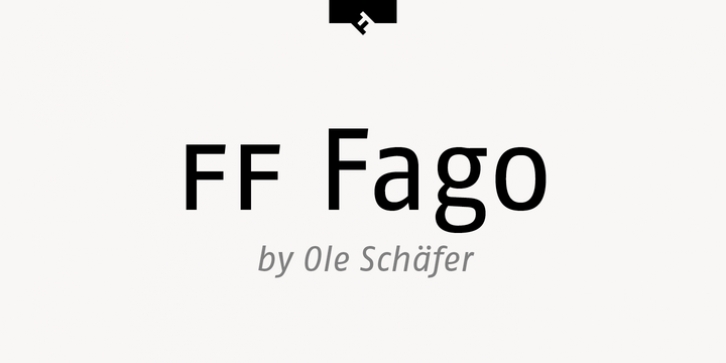
FF Fago Extended downloadDesigner: Ole Schäfer
Publisher: FontFont
German type designer Ole Schäfer created this sans FontFont in 2000.
The family has 30 weights, ranging from Regular to Black in Condensed, Normal, and Extended (including italics) and is ideally suited for advertising and packaging, editorial and publishing, logo, branding and creative industries, small text as well as wayfinding and signage.
FF Fago provides advanced typographical support with features such as ligatures, small capitals, alternate characters, case-sensitive forms, fractions, and super- and subscript characters.
It comes with a complete range of figure set options – oldstyle and lining figures, each in tabular and proportional widths.
This FontFont is a member of the FF Fago super family, which also includes FF Fago Correspondence Sans, FF Fago Correspondence Serif, and FF Fago Monospaced.